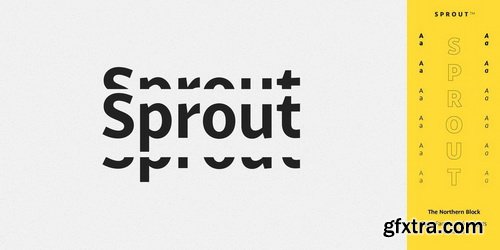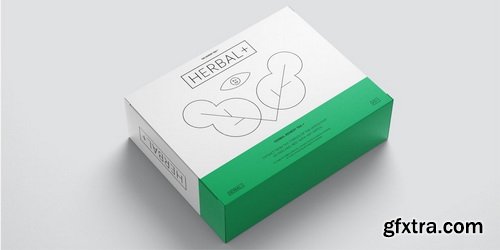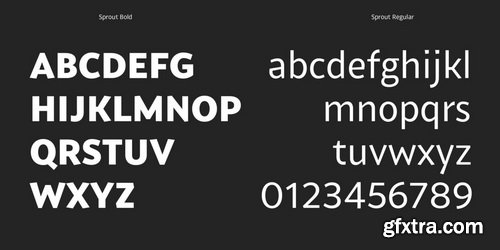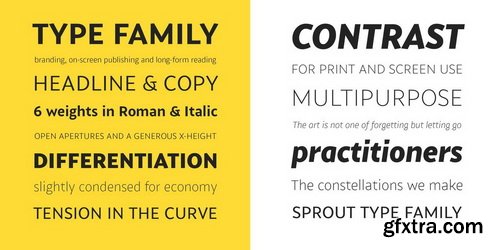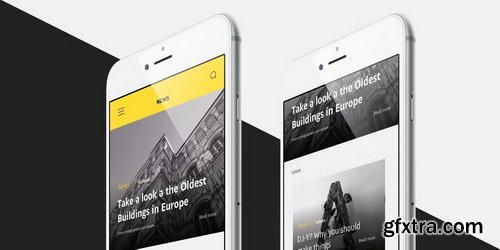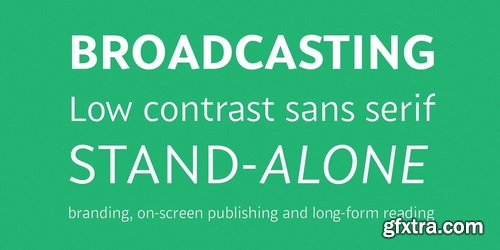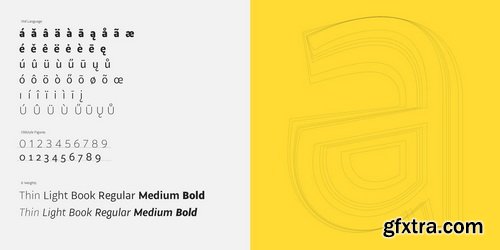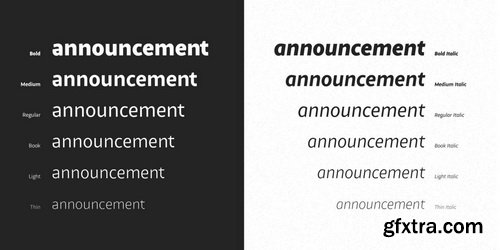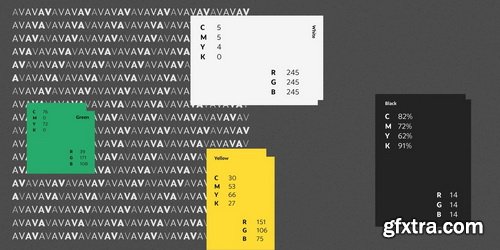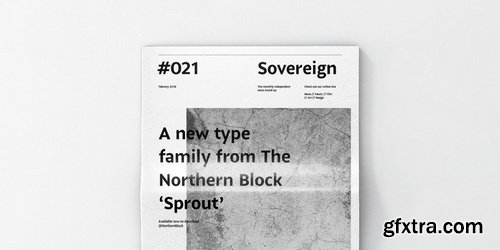
- Sprout is a low-contrast sans serif, slightly condensed for economy of space, and complete with 6 weights in Roman and Italic. It has open apertures and a generous x-height for clarity of reading. It also comes with a weight balanced italic, which can be used for differentiation or as a standalone typeface in itself. The defining feature of the family is the taut curve, where the inner counter pushes out toward the outer contour, creating a feeling of tension in the curve. In the italic this shape language is pushed further, with a playful looped g and cursive form of the f. Sprout also comes with Old Style figures. Its range of weights makes for a versatile family suitable for branding, on-screen publishing and long-form reading.